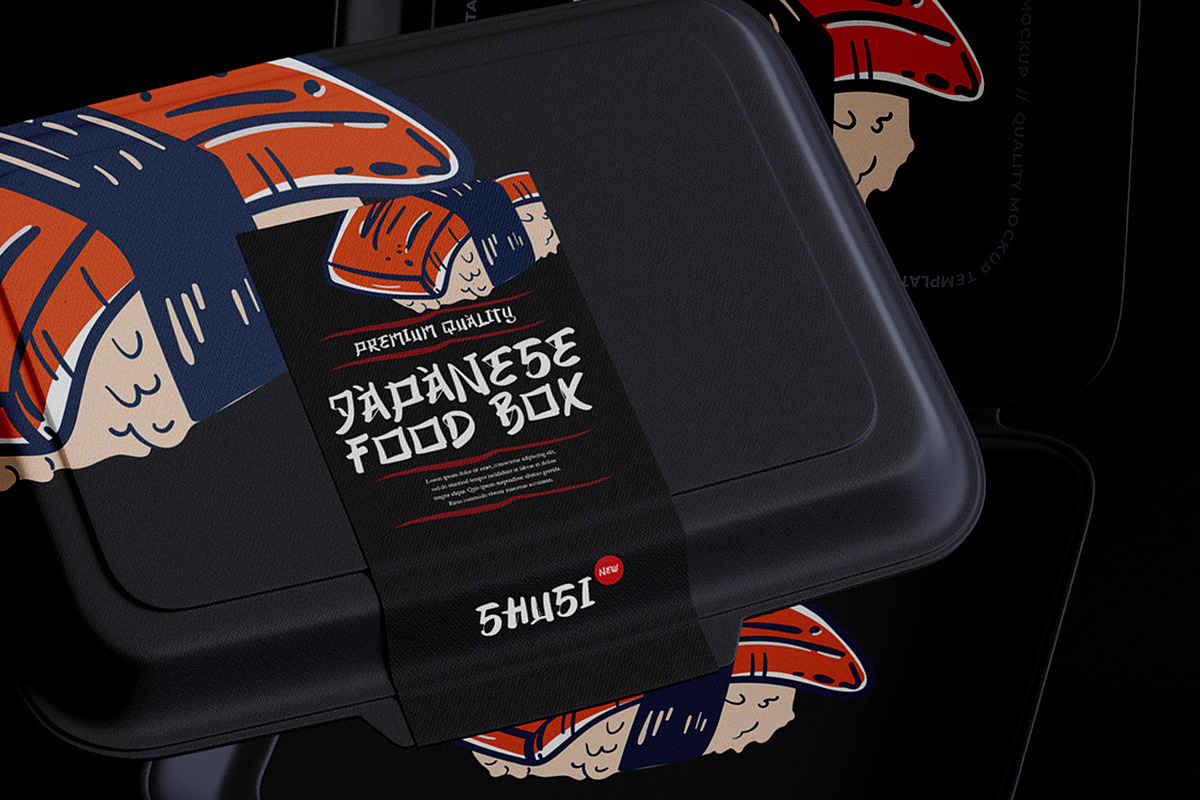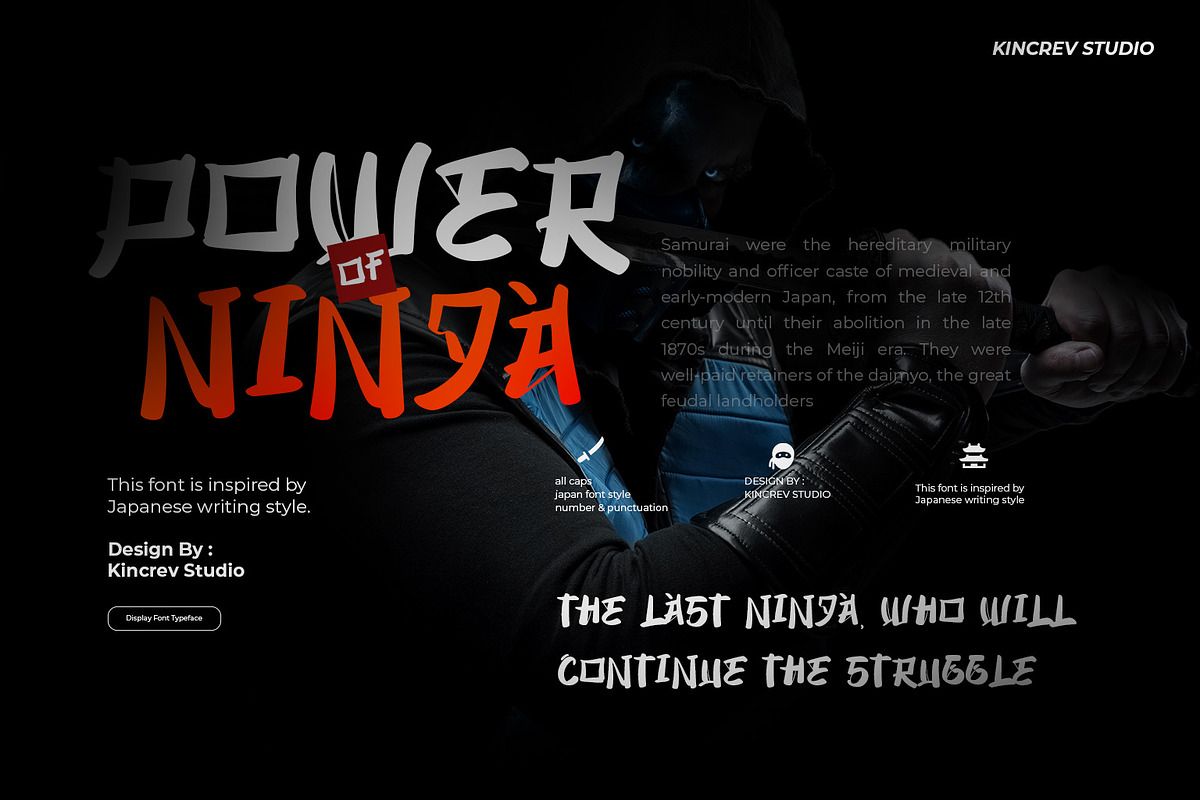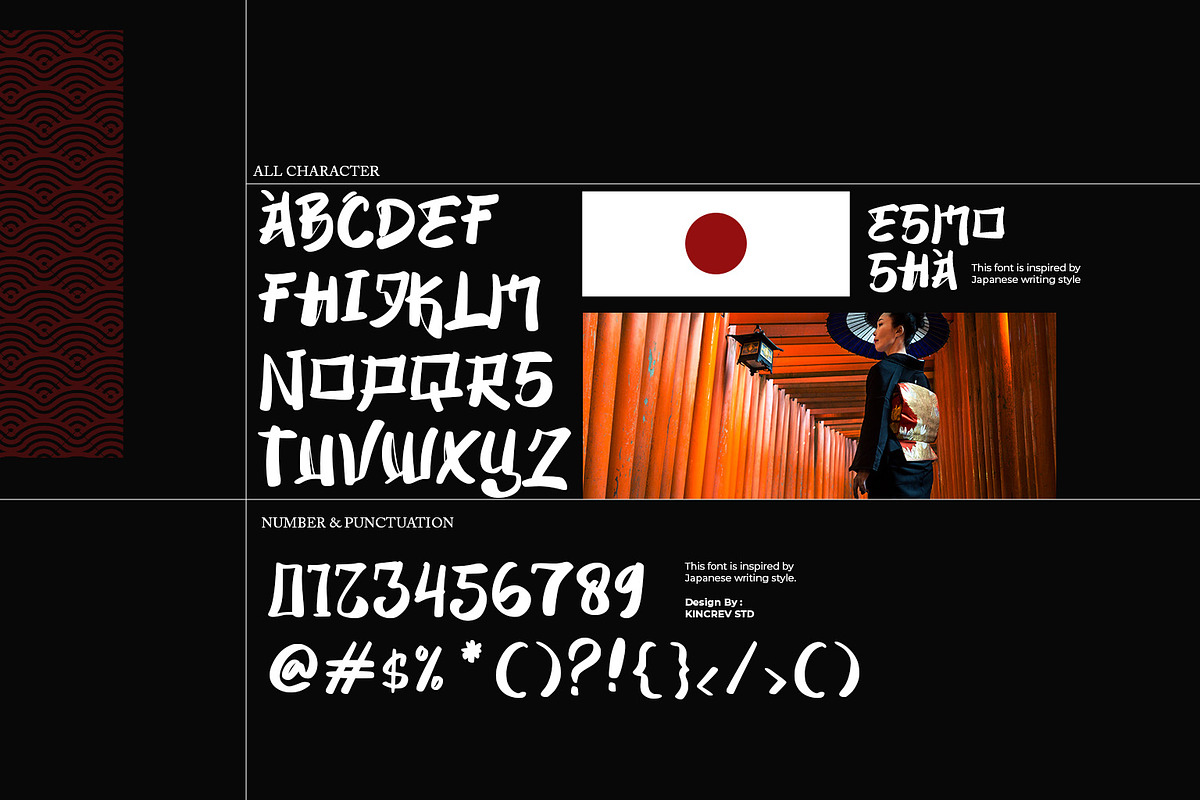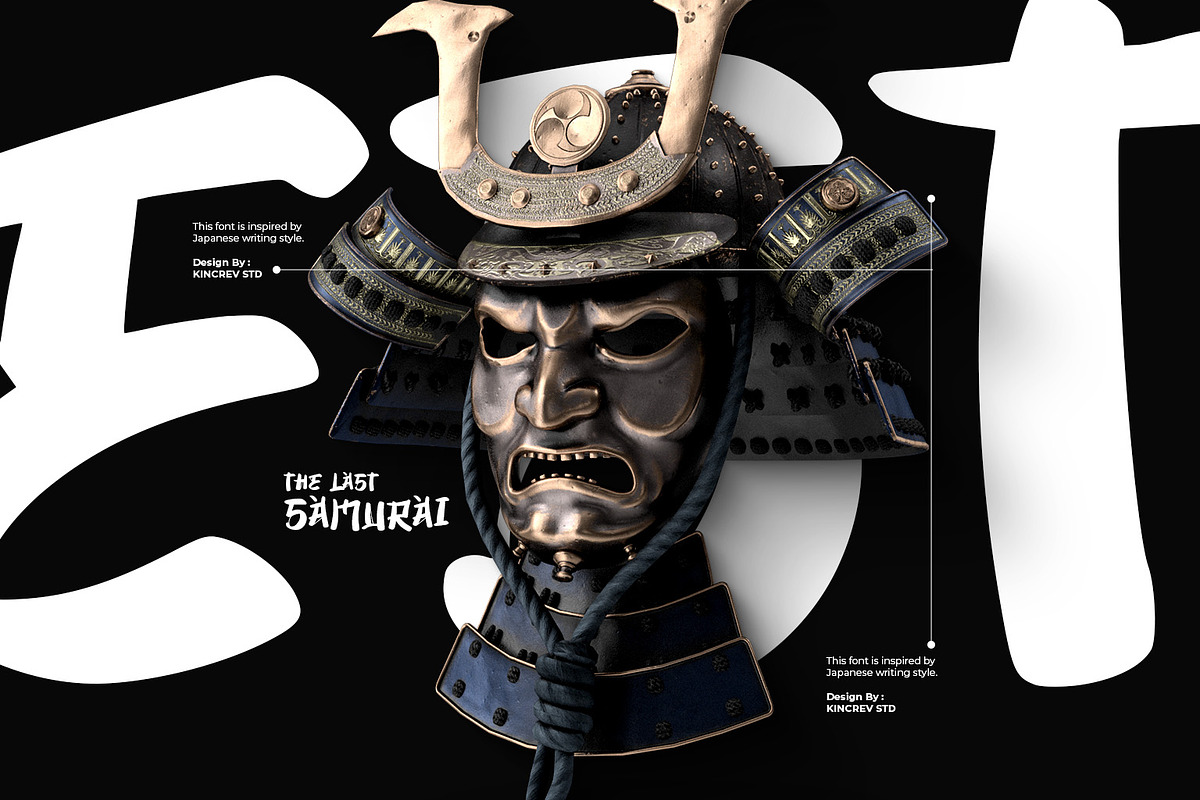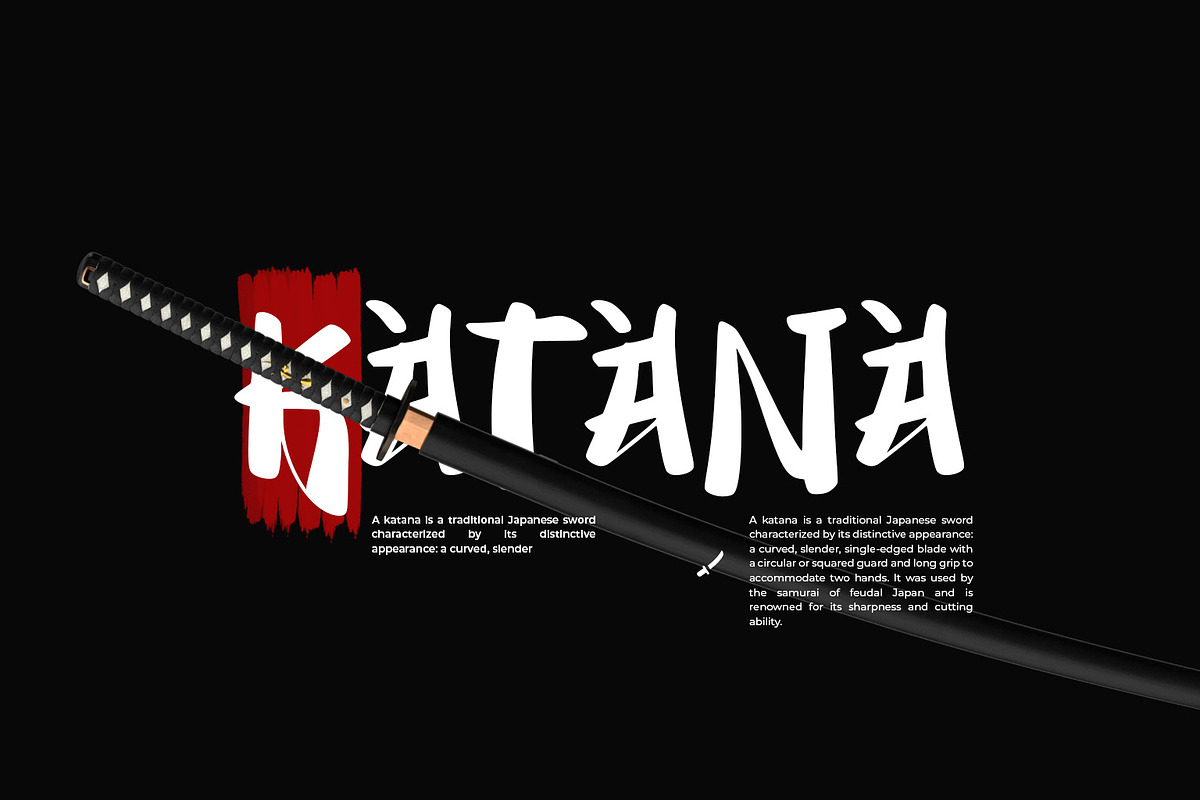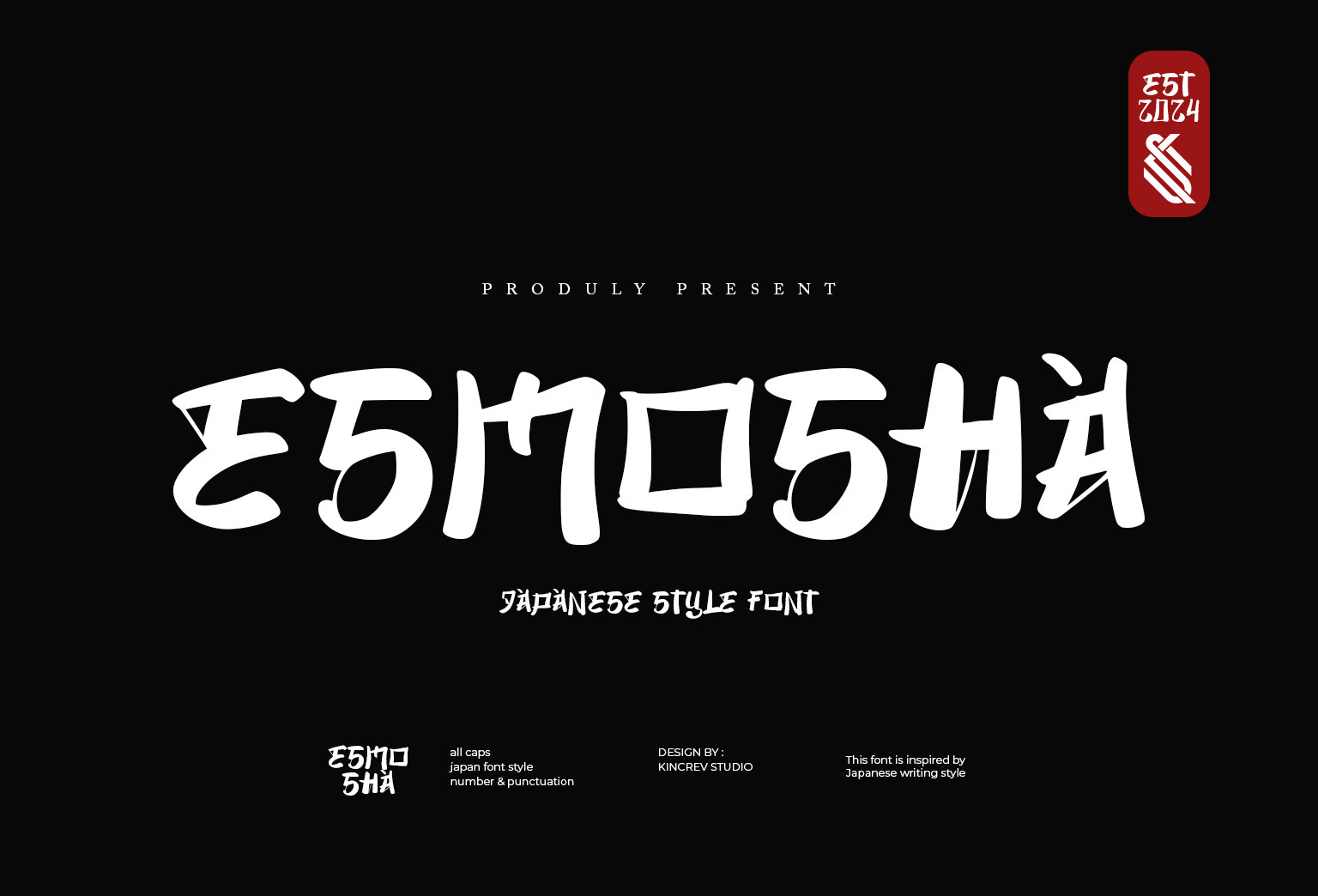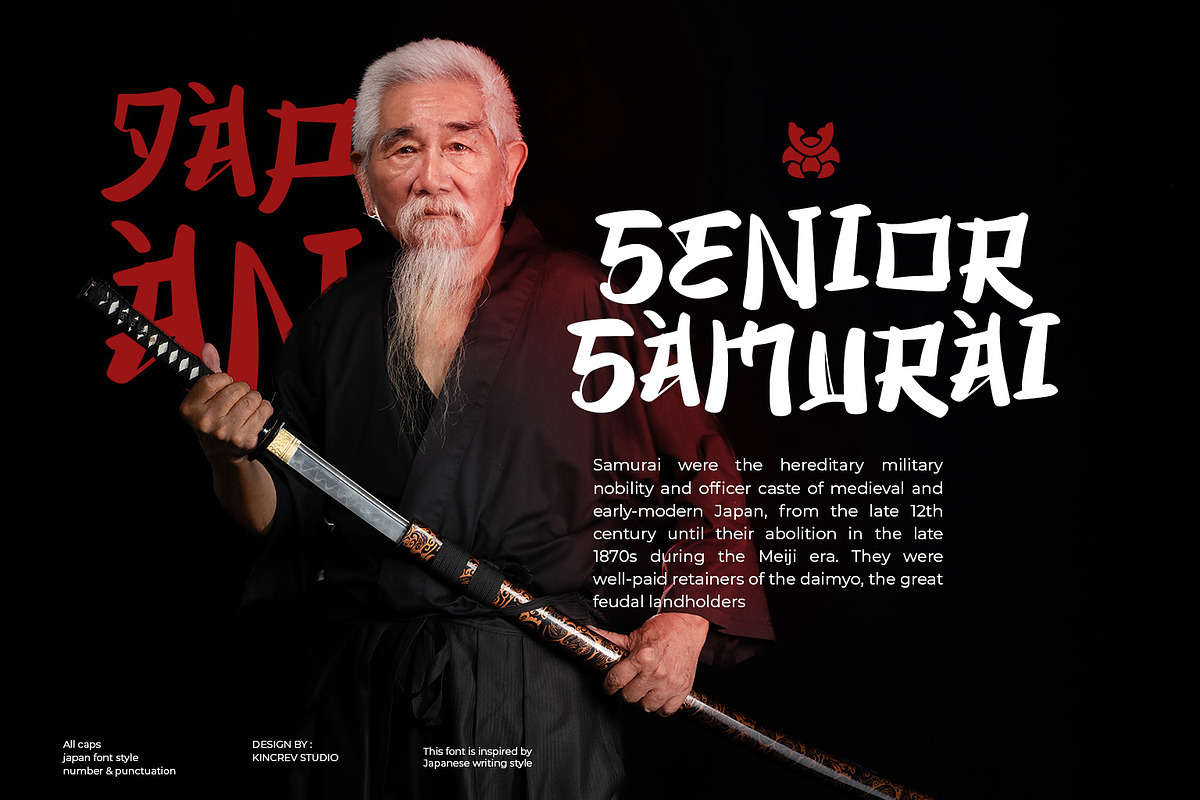
ESMOSHA - Japanese Style Font
Hello, Everyone! Ready to make your branding design outstanding? If you need to create a creative, modern and japanese look for your business, work on a poster for an event, or whatever your projects are, ESMOSHA - Japanese Style Font is the perfect one for you.
ESMOSHA , a handwriting font is font for you to get your designs with creative, modern and japanese look. It is made in uppercase letters which are easy on the eyes and nice to look at, and easy to read. This font is designed to bring your brandings to life and add a touch of modernity, fun and style.
ESMOSHA fits for any design projects, such as posters, banners, logos, book covers, album covers, quotes, invitations, greeting cards, name cards, headings, printed products, merchandise, social media, etc. Find out more ways to use this font by taking a look at the font preview.